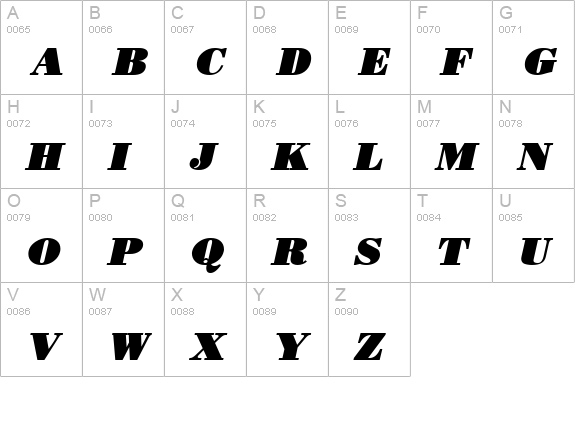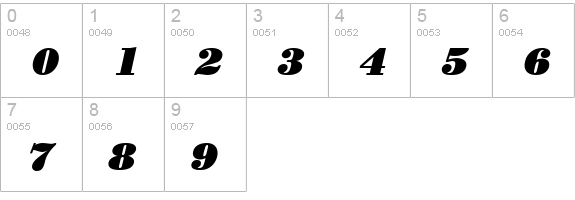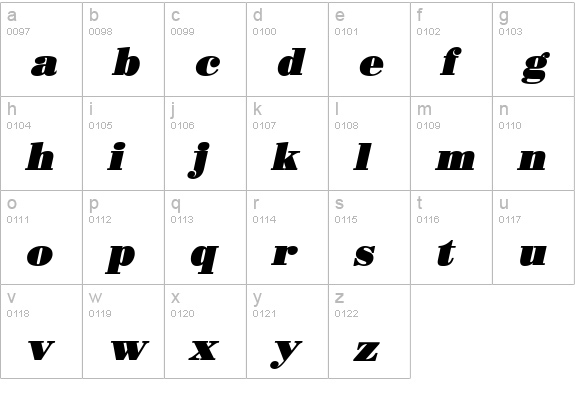
Beau BoldItalic Font Details
Introducing Beau BoldItalic, a striking and elegant typeface with a touch of flair. This font exudes confidence and sophistication with its bold yet italicized design, making it a perfect choice for projects that require a touch of modernity and style. The sleek curves and sharp angles of Beau BoldItalic create a visually captivating look that is sure to make your text stand out. What's more, Beau BoldItalic is available for free download at FontsMarket.com. This means you can easily access this stunning font and use it in your designs without any cost. Whether you're working on a branding project, website design, or any other creative endeavor, Beau BoldItalic is a versatile font that will elevate your work to the next level. Download Beau BoldItalic today and add a touch of bold elegance to your projects.